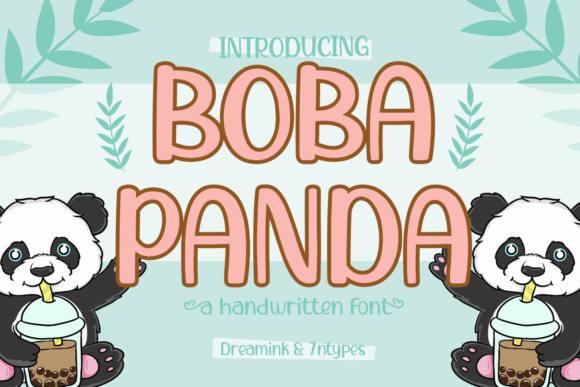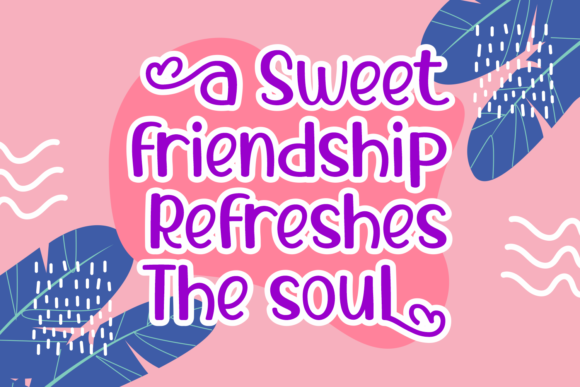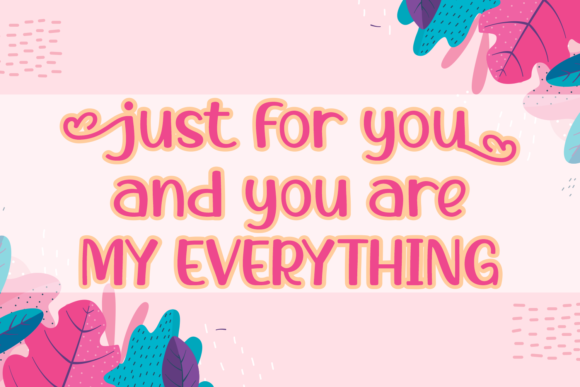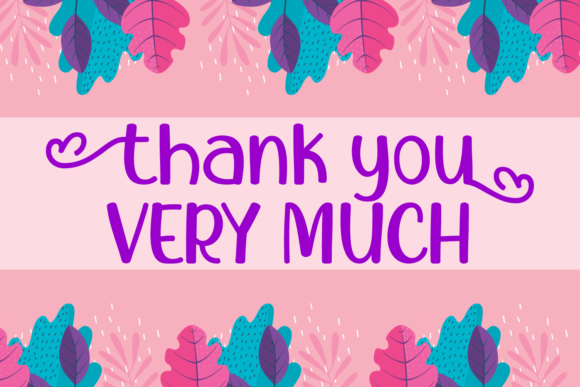
Boba Panda Font
About Boba Panda Font
Boba Panda is a whimsical handwritten font with a cheerful vibe! Its casual charm makes it appear wonderfully down-to-earth, readable and, ultimately, incredibly versatile. Boba Panda will look outstanding in any context, whether it’s being used on busy backgrounds or as a standalone headline!